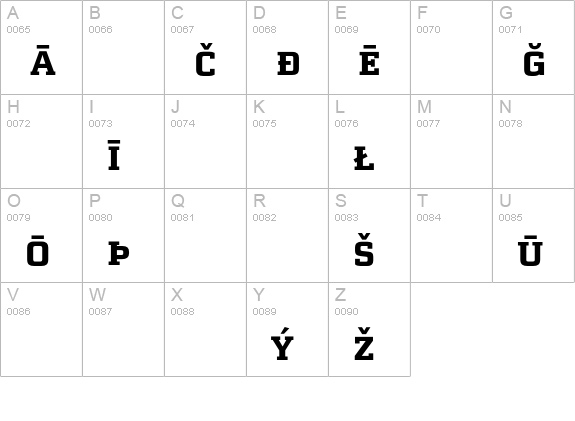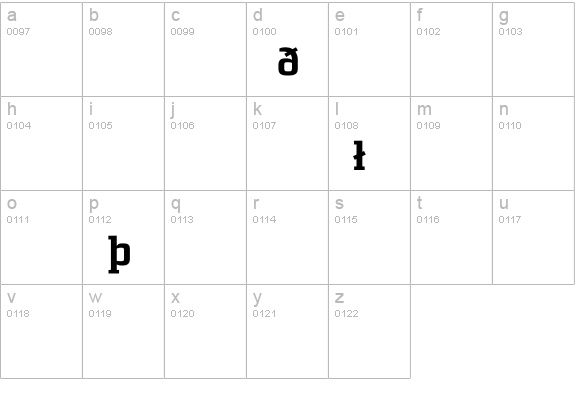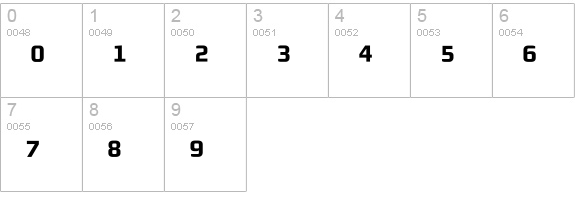
MorganAvec BoldPi is a stunning and versatile font that exudes elegance and modernity. With its bold and distinctive design, this typeface is perfect for making a statement in any design project. The sleek lines and unique curves of MorganAvec BoldPi make it a standout choice for branding, advertising, and editorial projects. What sets MorganAvec BoldPi apart is not only its striking aesthetic, but also its accessibility. This font is freely available to download at FontsMarket.com, making it easy for designers and creatives to incorporate it into their work without any barriers. Whether you're creating a logo, poster, website, or any other design, MorganAvec BoldPi is sure to make a lasting impression. Add a touch of sophistication and style to your projects with MorganAvec BoldPi. Download this exceptional font for free today and elevate your designs to new heights.